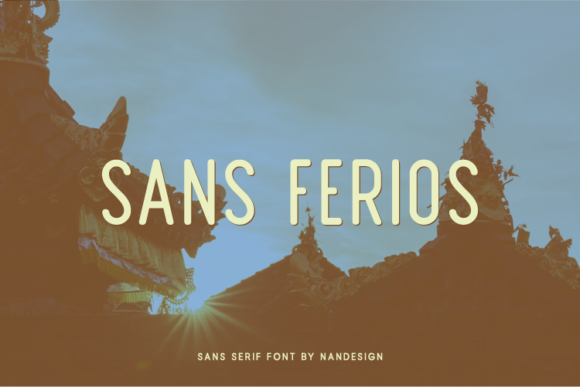
Unveil the Enchanting Sans Ferios Font: A Masterpiece for Interior Design Enthusiasts
Embark on a design odyssey with Sans Ferios, the captivating sans serif font family meticulously crafted by Nan Design. This typographic gem is not just a collection of letters; it's an artistic gateway to transform your interior design projects into breathtaking masterpieces. Prepare to be mesmerized by its extended character set, specifically tailored to elevate logos, branding, packaging, and more.
With Sans Ferios as your creative companion, you hold the key to unlock a world of design possibilities. Its clean lines, generous proportions, and unwavering consistency will lend an air of sophistication and elegance to any project you undertake. Whether you're a seasoned design professional or a passionate DIY enthusiast, Sans Ferios will elevate your creations to new heights of visual storytelling.
Step into the realm of interior design and let Sans Ferios guide you through a symphony of styles. Its versatility knows no bounds, effortlessly adapting to a myriad of design aesthetics, from the classic and timeless to the cutting-edge and unconventional. Allow your imagination to run wild as you explore the infinite design possibilities that await you with Sans Ferios.
Reimagine the boundaries of interior design with Sans Ferios, a font that transcends the ordinary and embraces the extraordinary. Its ability to seamlessly blend with various design elements, from colors and textures to patterns and shapes, will ignite your creativity and help you craft spaces that resonate with personality and charm.
As you embark on your design journey with Sans Ferios, let its extended character set be your guiding light. Unlock the potential of logos that speak volumes, branding that leaves a lasting impression, and packaging designs that captivate the senses. This font family is a treasure trove of typographic artistry, ready to transform your designs into works of art.